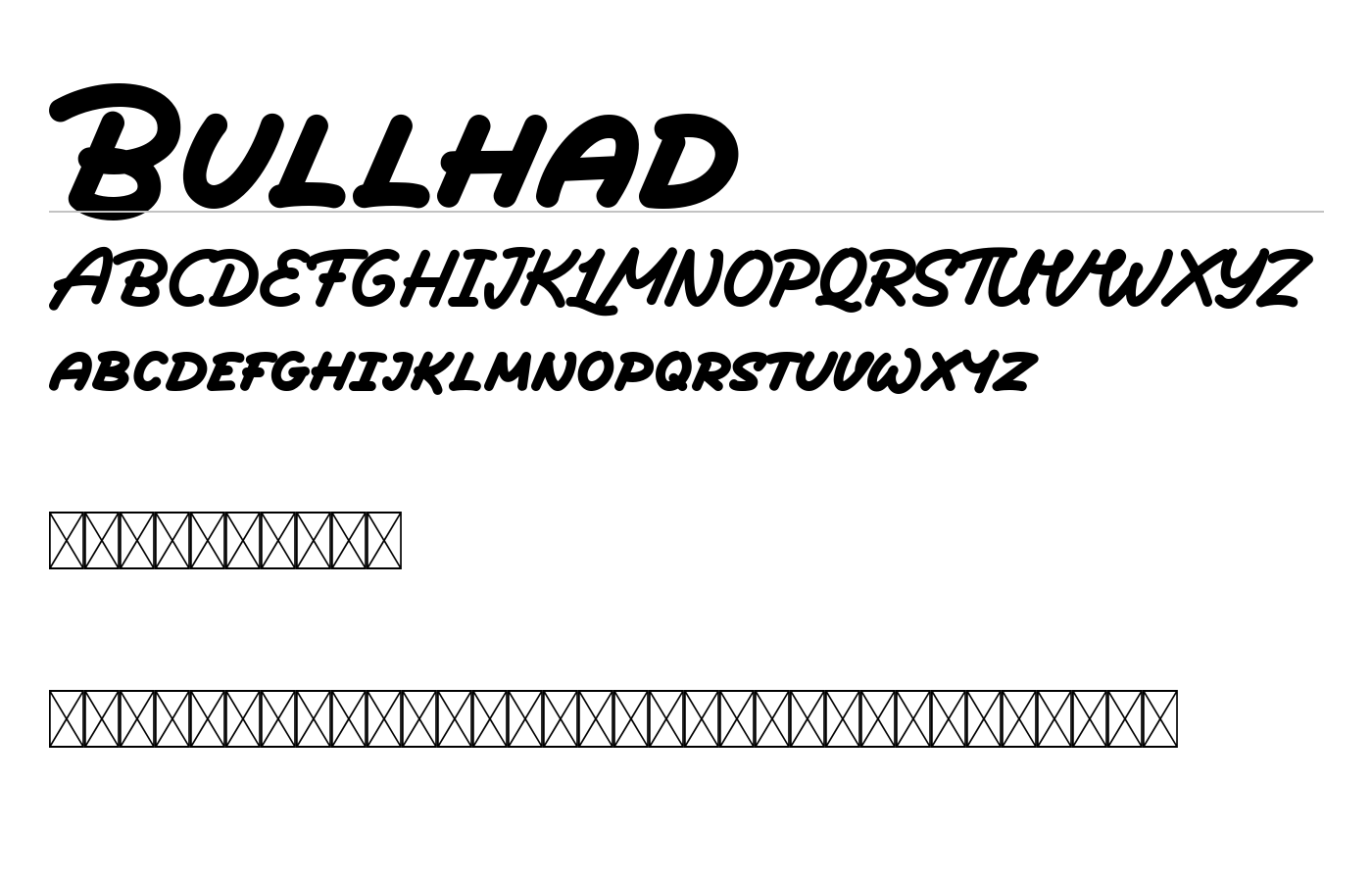
Bullhad is a bold, casual script font characterized by its rounded, brush-like strokes and fluid, connected letterforms that evoke a lively, informal feel. Its upright, slightly slanted style with medium contrast and playful curves makes it ideal for eye-catching headlines, branding, and packaging that seeks a friendly and approachable vibe. This font works great in designs requiring a spirited, handwritten touch without sacrificing readability.
Bullhad Font